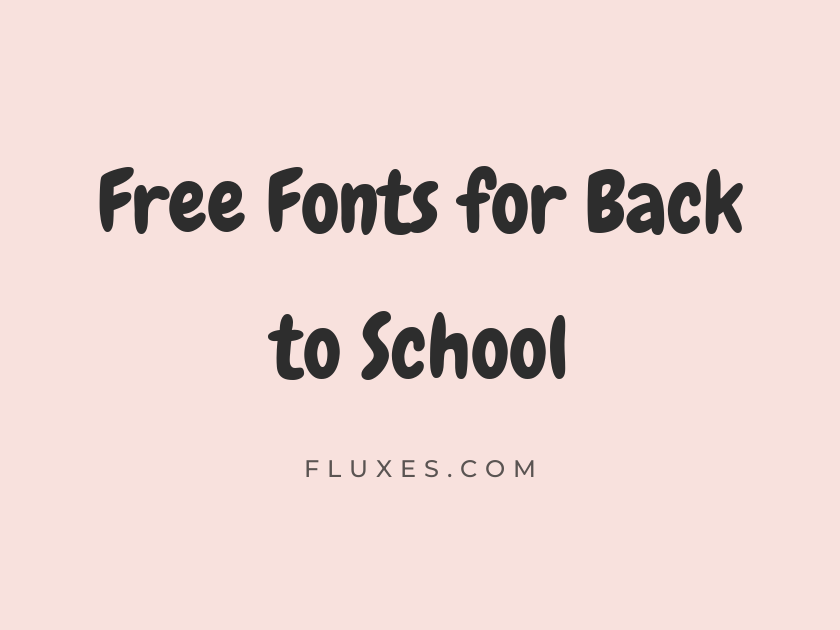
63 Best Free Fonts for Back to School
Back to school season means a sudden flood of design work: supply lists taped to the fridge, first-day-of-school signs for photos on the porch, class newsletters, hallway posters, syllabi, name tags, yearbook spreads, and the flyer for the fall open house. Free fonts from Google Fonts cover nearly all of it, from loose handwriting that looks scrawled in the margin of a composition notebook to sturdy sans serifs built for worksheets and dignified serifs suited to diplomas and honor roll certificates.
What follows moves from playful, kid-friendly handwriting and chalkboard styles through bold poster faces, into classroom-ready typewriter fonts, clean sans serifs for everyday paperwork, and finally the kind of serif faces that make a report card or graduation program feel a little more ceremonial.
Rounded, bouncy, and impossible to take too seriously, Chewy reads like a font drawn by a kindergarten teacher with a bubble letter obsession. It works well on classroom door decorations, sticker charts, and any header aimed at younger students, though it gets muddy at small sizes and should stay reserved for short bursts of text.
Schoolbell mimics the loopy, slightly uneven print of a grade school teacher’s handwriting on a whiteboard. It suits worksheets, spelling lists, and classroom labels aimed at elementary students, and it pairs naturally with a plain sans serif for body copy so the handwriting stays a decorative accent rather than the main voice.
There’s a scrappy, DIY energy to Permanent Marker that suits hallway posters, locker signs, and anything meant to look hand-labeled in a hurry. It carries real thickness and confidence at large sizes, which makes it a favorite for bake sale flyers and spirit week announcements.
Caveat is one of the most natural-looking handwriting fonts on Google Fonts, with enough variation in its letterforms that long passages still feel organic rather than robotic. It works beautifully for teacher comments on assignments, casual class newsletters, or the handwritten-style notes on a school project mockup.
It also holds up surprisingly well at smaller sizes compared to most script fonts, so it’s a safe pick for sticky-note style callouts throughout a worksheet or a syllabus cover page.
Kalam brings a friendly, slightly informal Devanagari-influenced handwriting feel to Latin text, with a bit more weight and structure than a typical script. It’s a solid choice for classroom bulletin board headers or study guide covers that need warmth without looking childish.
Clean, legible, and genuinely readable in paragraph form, Patrick Hand is the rare handwriting font that can carry actual body text on a worksheet or classroom handout. It looks like the tidy print of a favorite teacher rather than a scrawl, which makes it useful anywhere clarity matters as much as charm.
Architects Daughter has a technical-drafting quality mixed with casual handwriting, as if someone sketched notes in the margin of a blueprint. It suits science fair labels, project diagrams, and anything with a maker-space or STEM classroom feel.
Thin, playful, and a little wobbly, Gochi Hand looks like it was written with a fine-tip marker by a student proud of their penmanship. Use it sparingly for headlines rather than paragraphs, since its lightness thins out at small sizes.
Indie Flower has been a staple handwriting font for years, and it earns that popularity with rounded, friendly letterforms that feel upbeat without being childish. It fits birthday-style classroom decorations, welcome-back bulletin boards, and casual parent newsletters equally well.
Handlee
There’s a soft, unhurried quality to Handlee that makes it feel like a personal note rather than a printed document. It works nicely for journal prompts, reading log templates, or any assignment that wants to feel approachable rather than institutional.
Amatic SC is a tall, narrow, hand-drawn condensed font that reads as sketchy and casual even in all caps. It has become something of a go-to for chalkboard-style signage, and it earns that reputation on supply list graphics, printable labels, and classroom door signs where a lot of text needs to fit in a small space.
Because it is so narrow, it holds up better than most handwriting fonts when space is tight, though it should stay at larger sizes since fine details disappear when shrunk down.
Always test a font at the size it will actually be printed or displayed. Many handwriting and chalkboard styles look charming as headlines but turn illegible in a paragraph of body text.
Between the loose, hand-lettered charm suited to classroom decor and the steady, professional serifs and sans serifs built for official paperwork, there’s enough here to design an entire school year’s worth of materials without spending a cent on fonts. Download whichever combination fits the project, and let the rest of the design breathe around it.